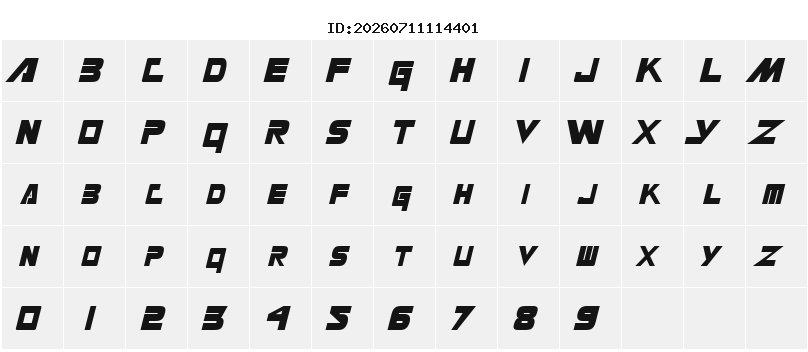
• Font Name: Masterforce
• Full Font Name: Masterforce Normal
About Masterforce.ttf
Masterforce.ttf is a modern, elegant sans-serif font designed for ultimate readability and visual harmony. Perfect for branding, headlines, web design, and print materials.